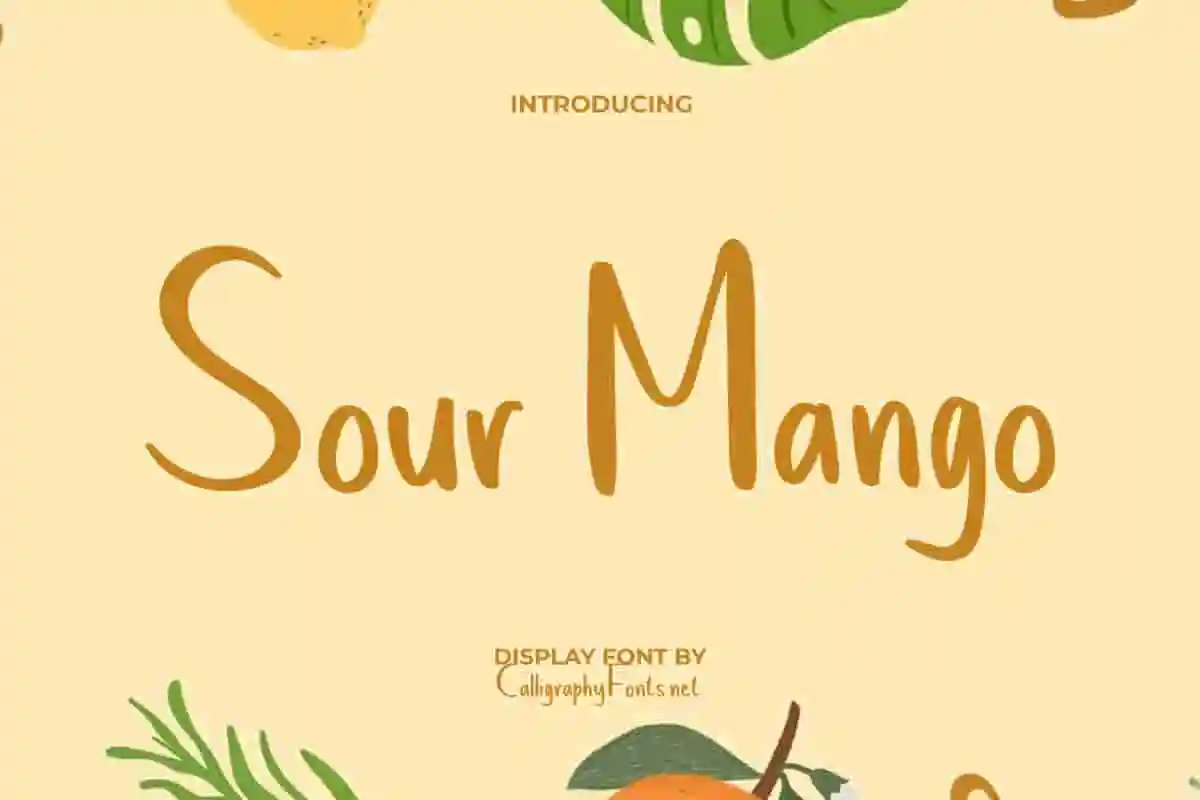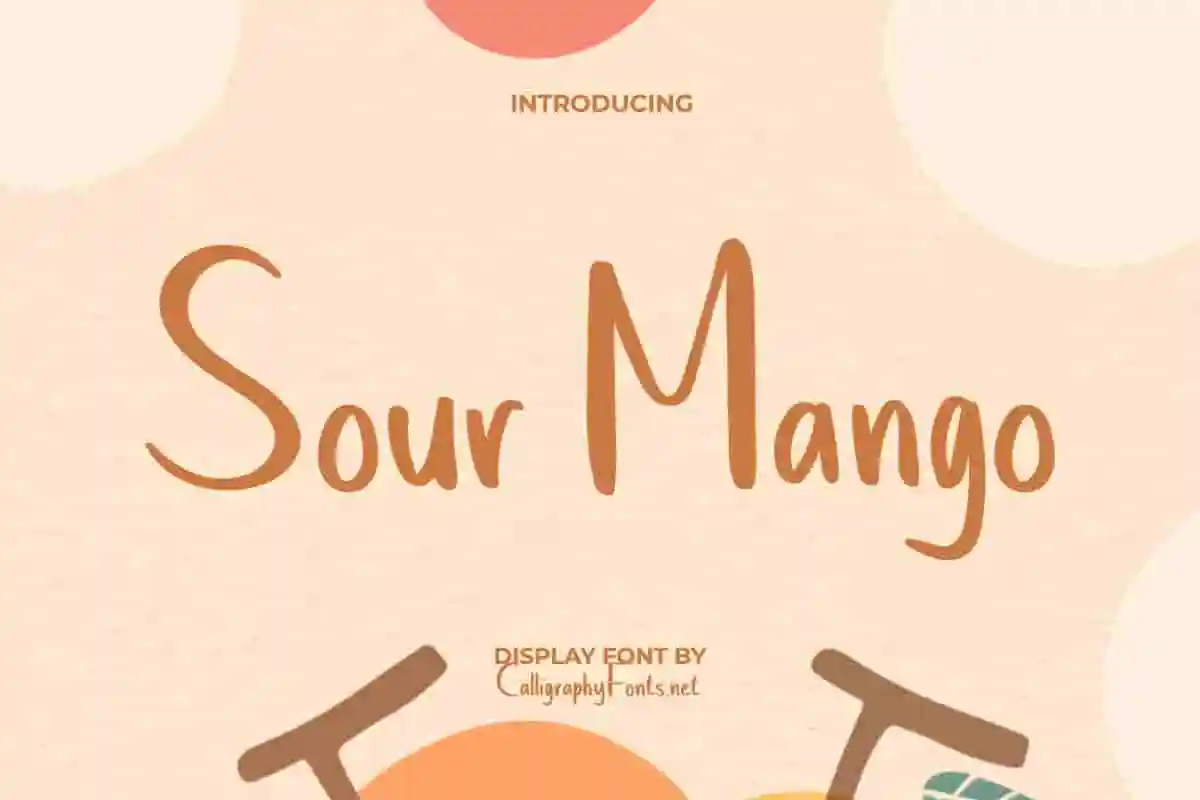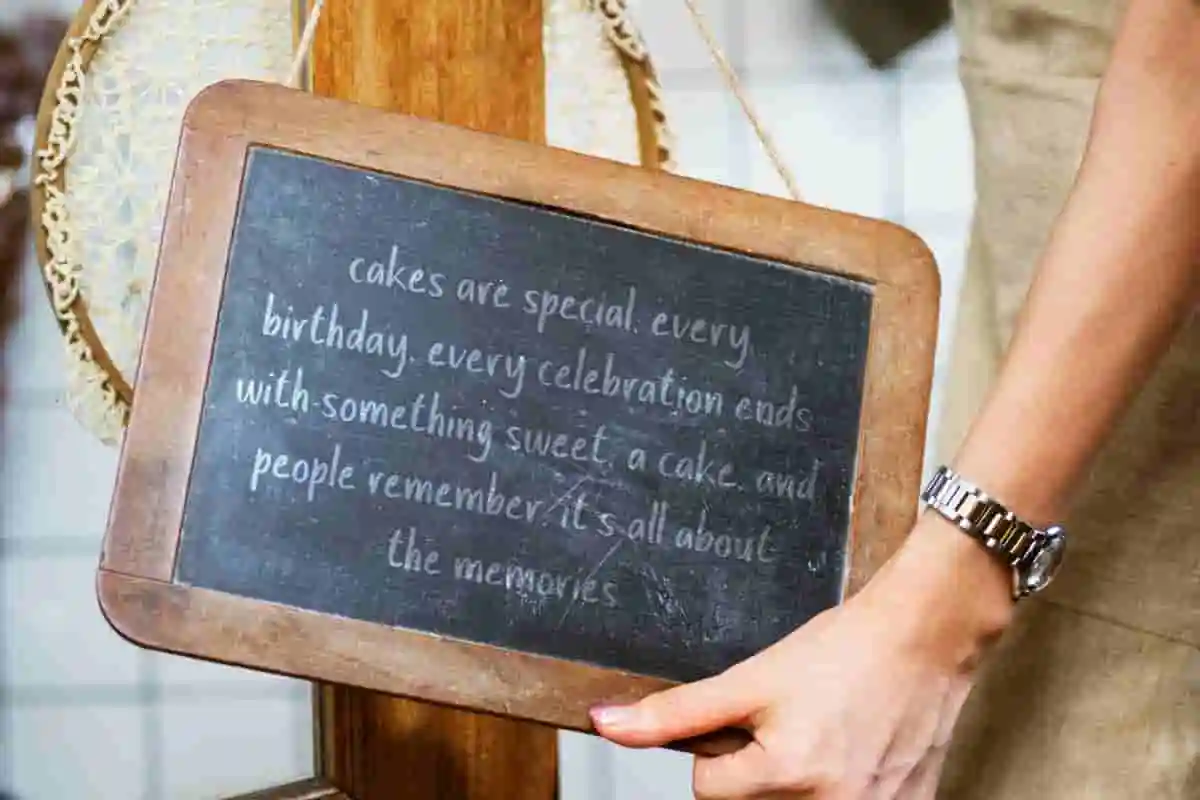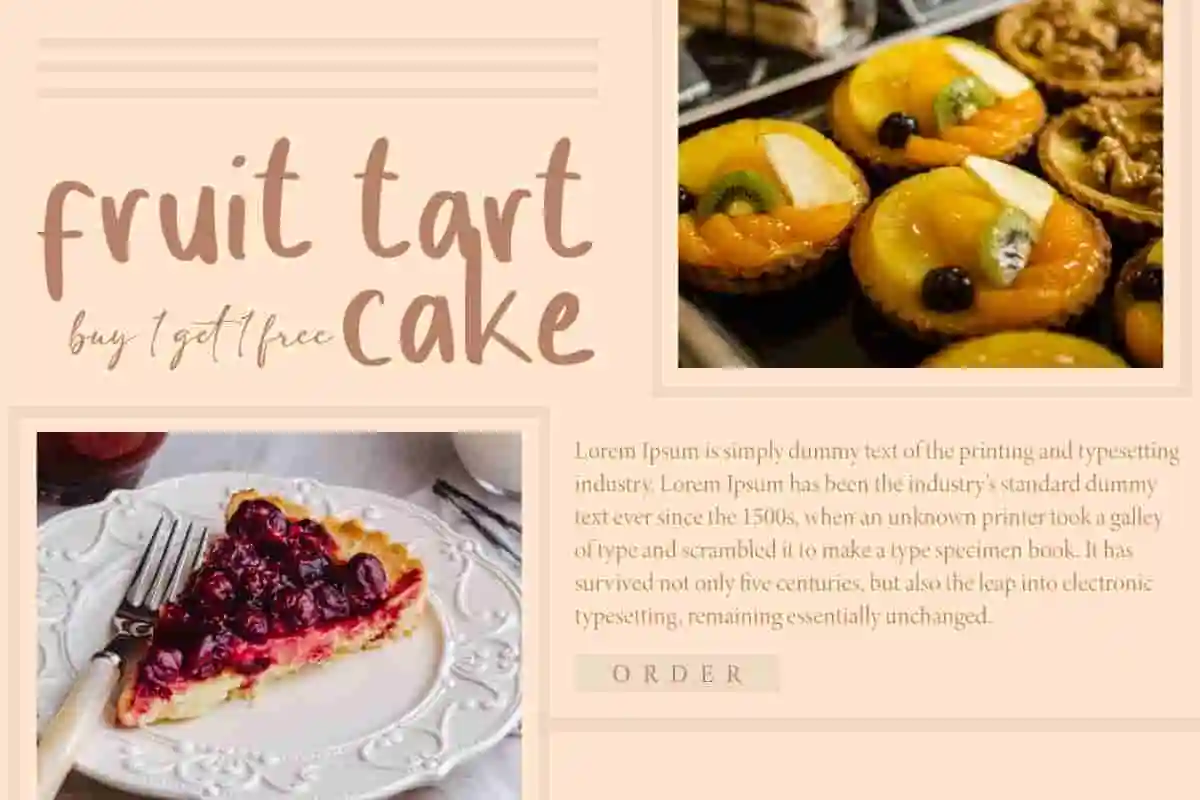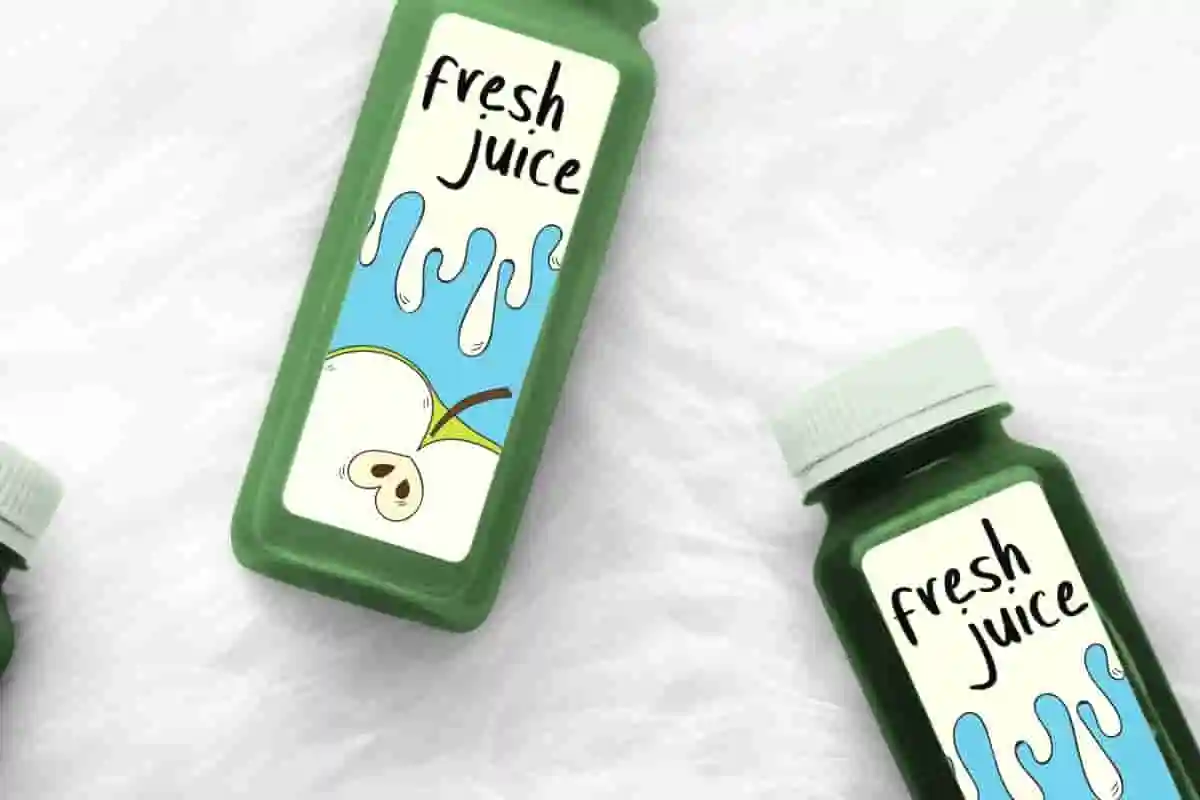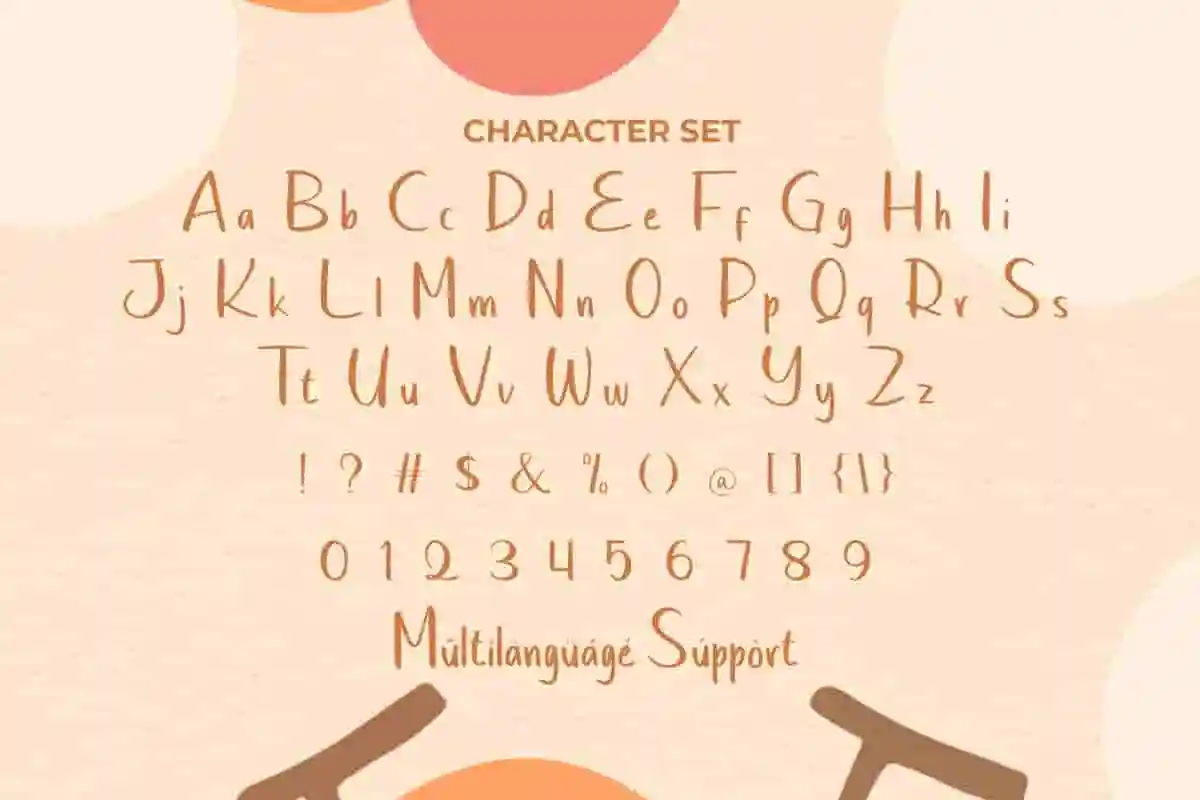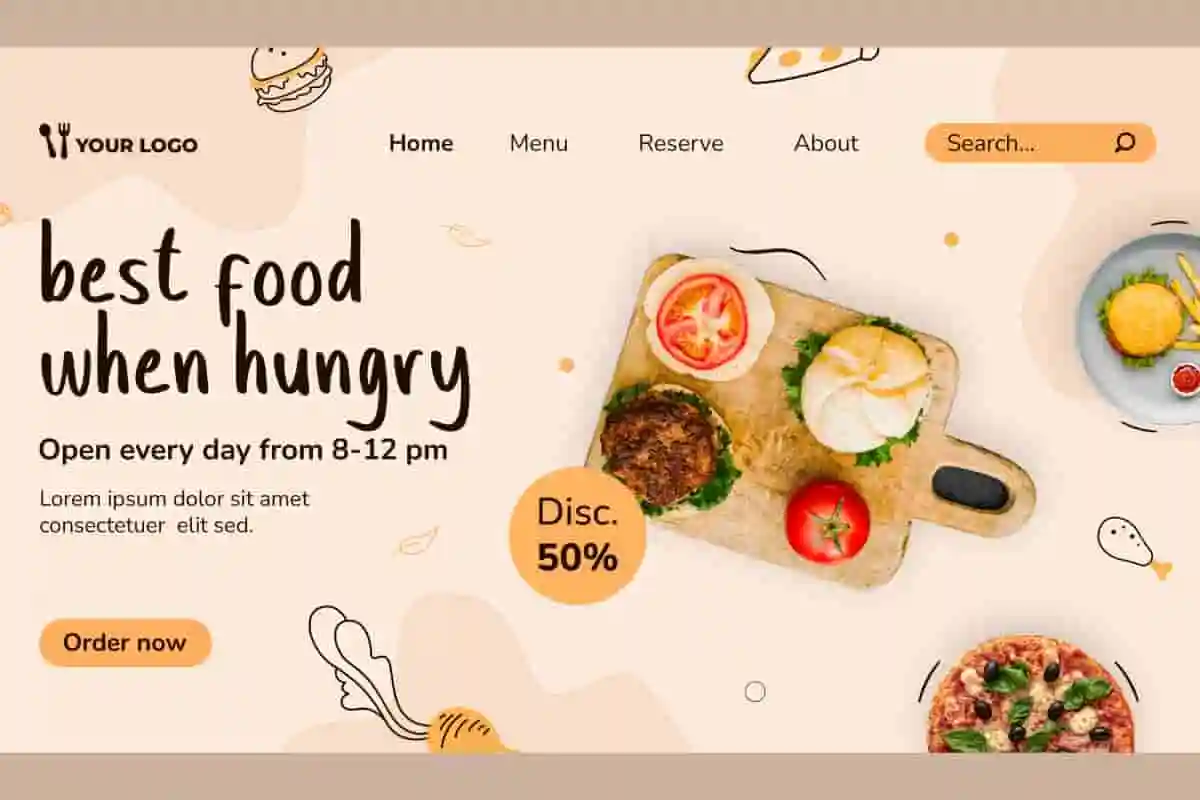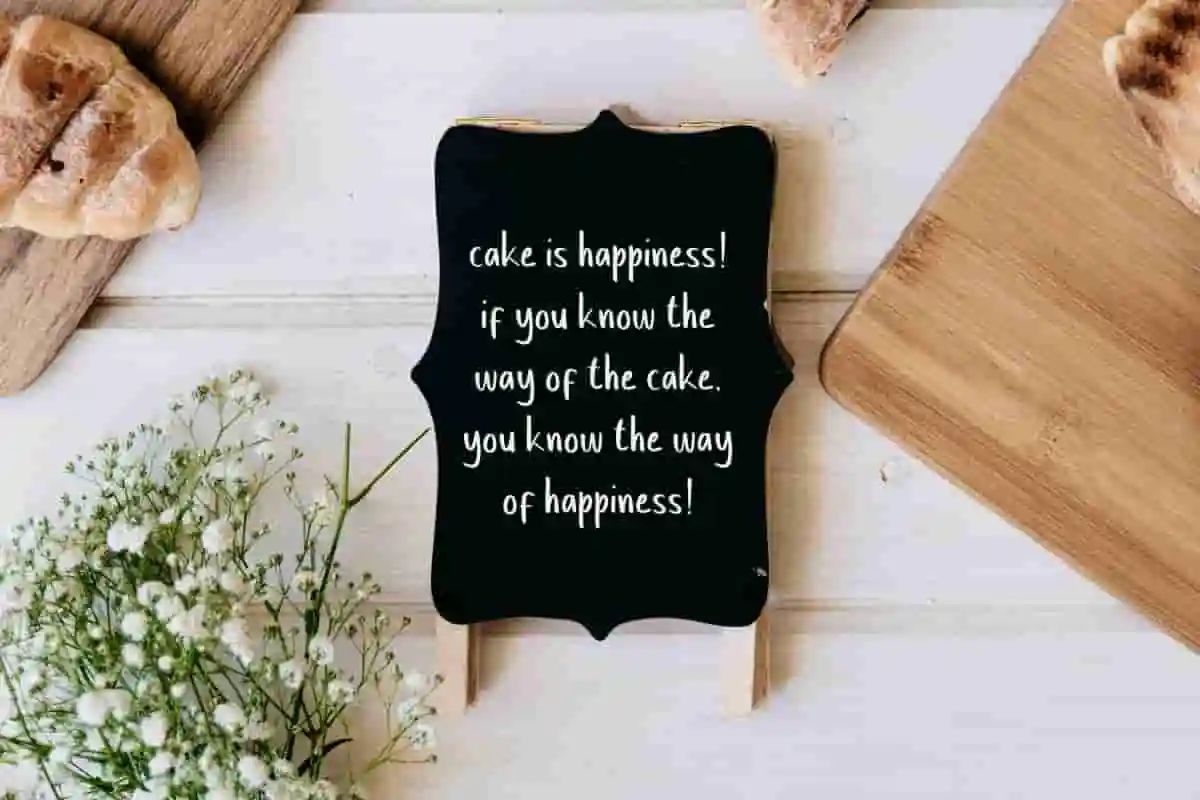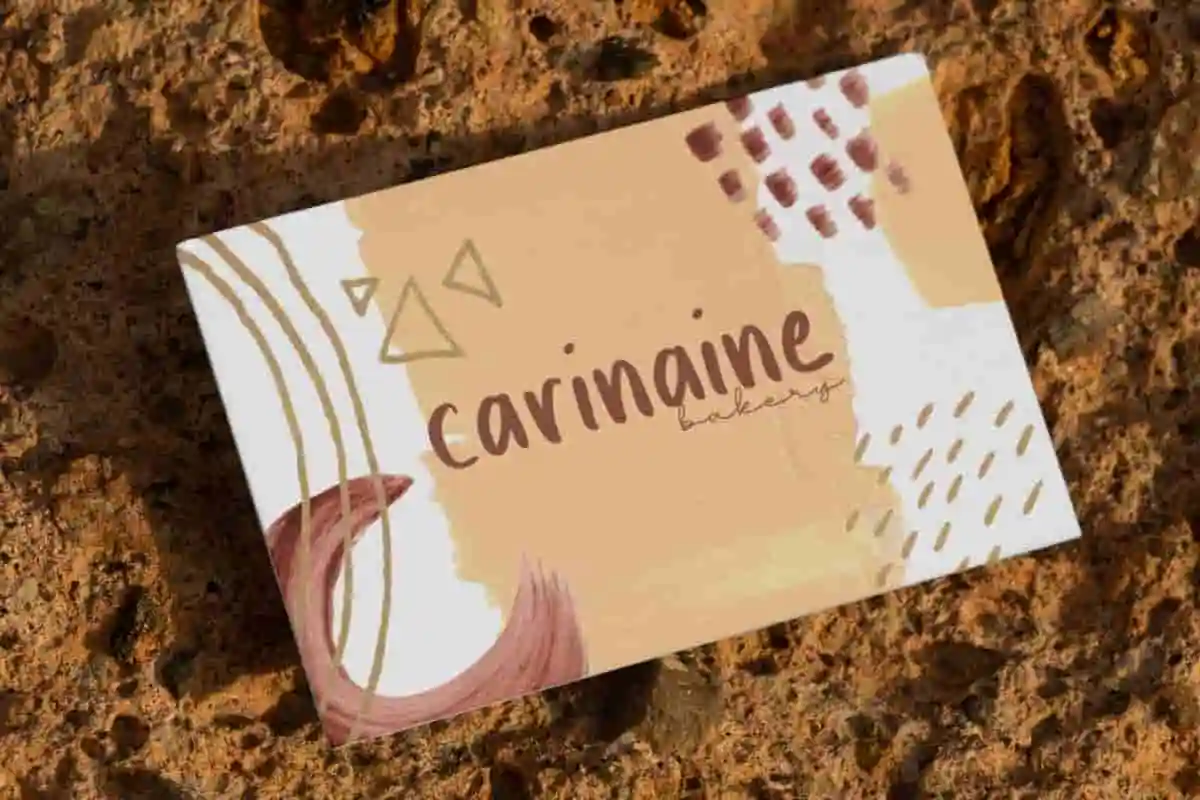
Sour Mango Brush Font
Sour Mango Font is a delightful script display font with a touch of natural charm handwriting. A must-have font to add to your typography collection.
Sour Mango Font is a delightful script display font with a touch of natural charm. This sweet and refreshing handwritten font has soft yet irregular line strokes, making it create an interesting look and easy to read. This font is perfect for banners, billboard, blogs, brand logo, brochure, covers, flyer, greeting cards, headers, invitation, mockup, poster, quotes, sign board, stationery, sticker label, template, title, website, and many more.
Add a splash of creativity and personality to your designs with Sour Mango Brush Font, a lively and authentic brush script font perfect for crafting unique logos, invitations, social media posts, and branding projects. This handcrafted brush font brings a fresh, dynamic feel that instantly grabs attention. Designed with natural brush strokes and textured details, Sour Mango captures the imperfect beauty of hand lettering, making your text feel warm, personal, and full of energy
Bring life and personality to your creative projects with Sour Mango Brush Font, a lively brush script font that feels authentic and handcrafted. Perfect for adding a touch of fun and freshness to logos, packaging, invitations, and social media content, this font turns ordinary text into artistic expressions. With its natural brush strokes and subtle texture, Sour Mango offers an organic and dynamic look that’s full of energy.
Inject your designs with vibrant energy using Sour Mango Brush Font, a handcrafted brush script that brings creativity and personality to every project. Whether you’re crafting unique logos, eye-catching social media posts, invitations, or packaging, this font delivers a lively, artistic touch. Created with authentic brush strokes and subtle texture, Sour Mango captures the natural flow and charm of hand lettering.
- Ideal for logos
- Full multilingual support including numbers and punctuation
Sour Mango Font brings a personal touch and versatile warmth to a variety of creative projects, ensuring your message stands out with fun style. This font is perfect for bakery and pastries, cafes, content creator, creative industries, dessert chef, digital marketing, fresh fruits wholesalers, fruit juice stall, graphic designer, handicraft, illustration, publisher, restaurant, toys, transport advertising media, and many more.